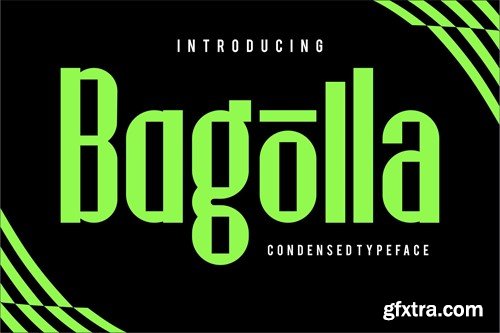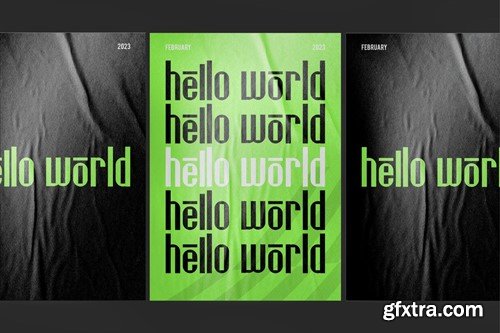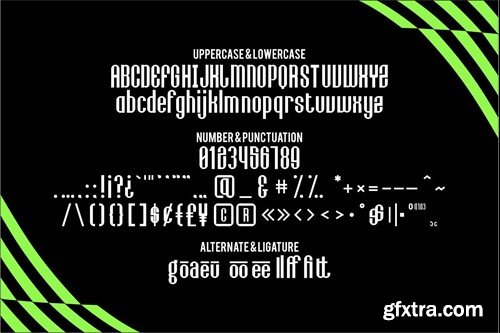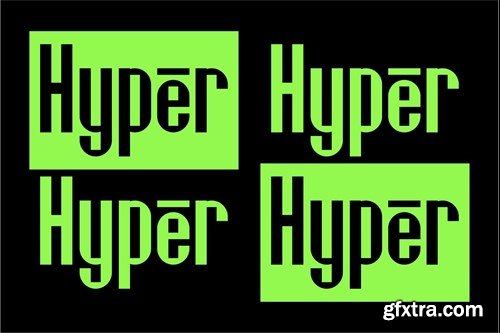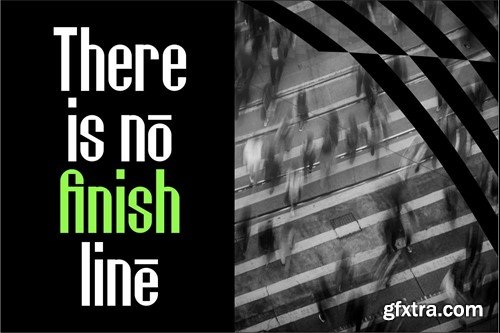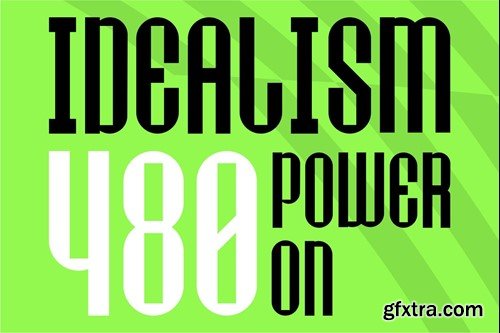
Bogolla - Condensed Font 2DK6A79
Bogolla - Condensed Font with a calligraphy style, So beautiful on invitation like greeting cards, branding materials, business cards, quotes, posters, and more! The alternative characters were divided into several Open Type features such as Stylistic Sets, Stylistic Alternates, Contextual Alternate, SWASH and Ligature. The Open Type features can be accessed by using Open Type savvy programs such as Adobe Illustrator, Adobe InDesign, Adobe Photoshop Corel Draw X version, And Microsoft Word. And this Font has given PUA unicode (specially coded fonts). so that all the alternate characters can easily be accessed in full What’s Included : Thank you very much for looking and please tell me if you have questions, Hopefully you like our item